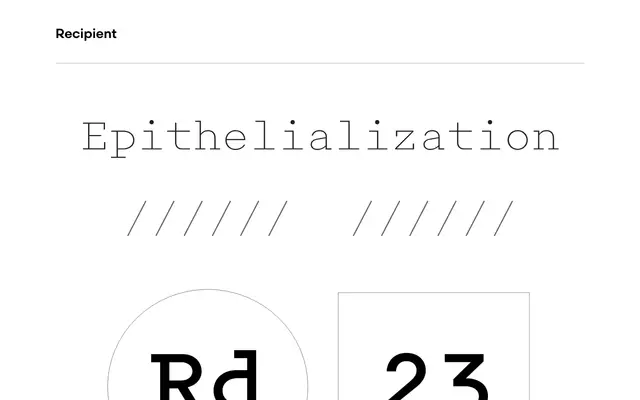
Recipient
Process Type Foundry · Eric Olson · 2022
A monospaced text face by Eric Olson that draws on IBM Selectric and Olivetti typewriter designs from the final years of pre-digital office typography.
Five weights with matching italics give Recipient enough range for text and small headlines while maintaining the fixed-pitch rhythm of its typewriter forebears. Eric Olson blends drawn and geometric elements to keep it from feeling purely historicist, and practical OpenType features including pre-built fractions, superscripts, subscripts and arrows extend its usefulness for technical and editorial settings. Released in 2022, it sits in a small category of typefaces that look squarely at the office machine heritage without simple pastiche.
Explicitly a monospaced typeface, descended from IBM Selectric and Olivetti typewriter faces, combining drawn and geometric elements for text and headline use.